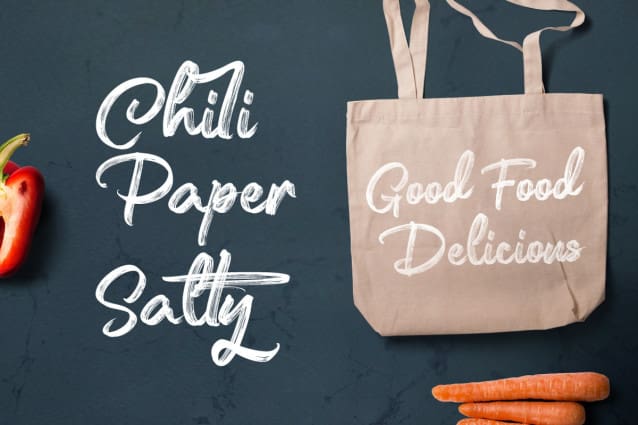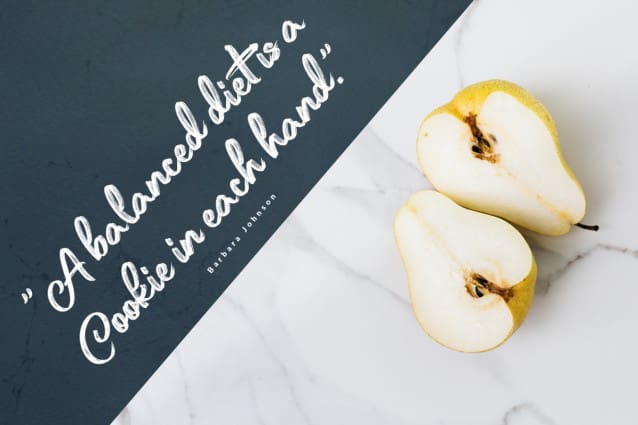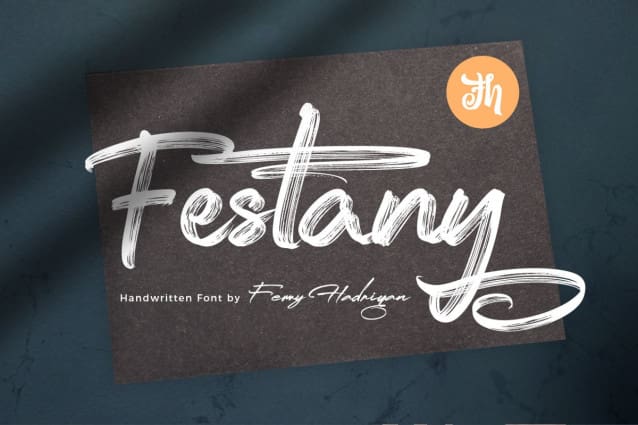
Festany Brush Font
Festany Brush Font is script font with handlettering brush style, with opentype feature include of the font. Suitable for design, element design, wedding, event, t-shirt, logo, badges, sticker, and awesome work, etc…